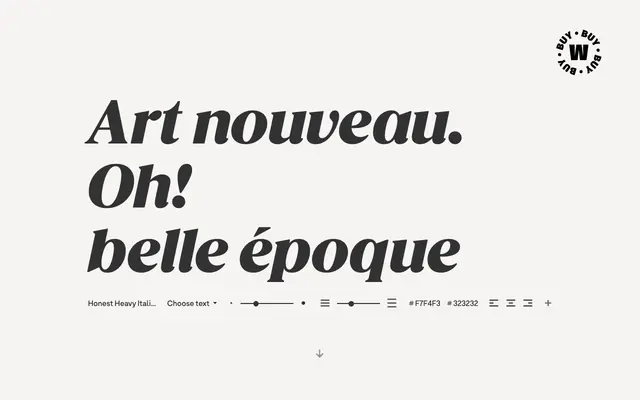
Honest
A display serif by Diego Aravena that revisits 1970s and 1980s print typography across seven weights with upright and italic styles.
Honest takes its formal cues from the serif typefaces found in print media during the 1970s and 1980s, giving it a distinctly period-inflected character that works well for logos and headline settings. Its large x-height suits tight leading, which makes it practical for compact headline compositions. The family runs from Thin to Heavy, each with a matching italic, totalling fourteen styles.
A display serif drawing on 1970s–80s print media letterforms, with a large x-height and distinctive style suited to headlines and logos rather than continuous text.